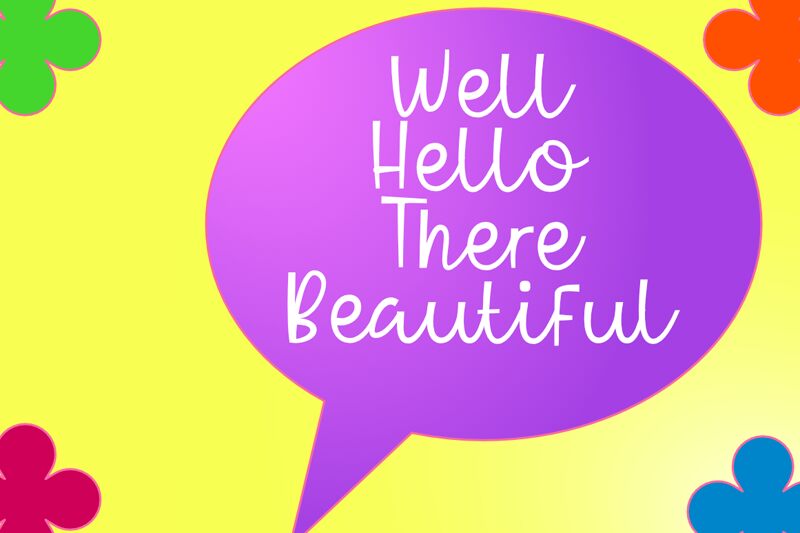
Epic Hello, the delightful handwritten font by epiclinez, adds a touch of cuteness and beauty to any project. With its semi-light weight, this font effortlessly creates an inviting and playful atmosphere. Perfect for children's books, greeting cards, and social media posts seeking a charming aesthetic. Its versatility also shines in crafting elegant logos or designing whimsical invitations. Let Epic Hello be your go-to choice for projects that require a touch of adorable sophistication. Discover the endless possibilities this endearing font brings to life!